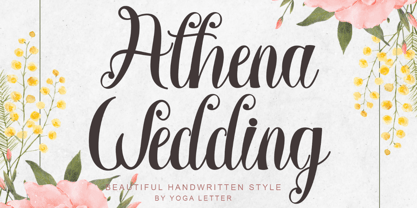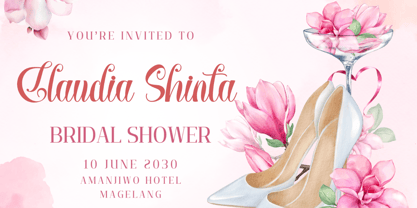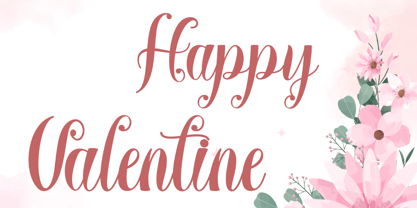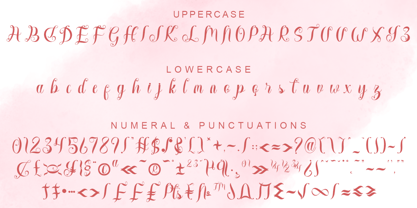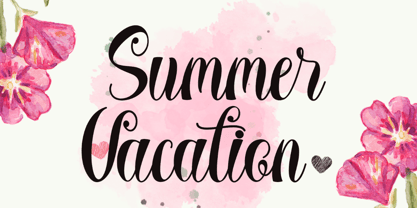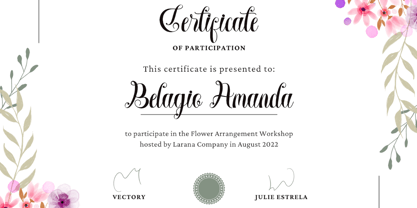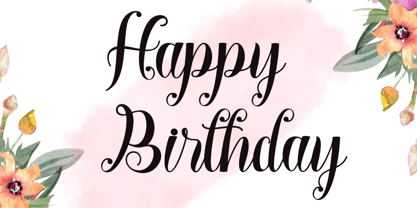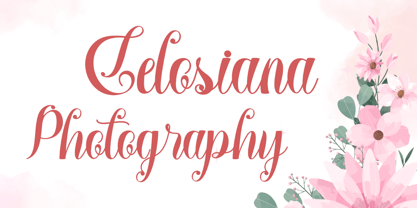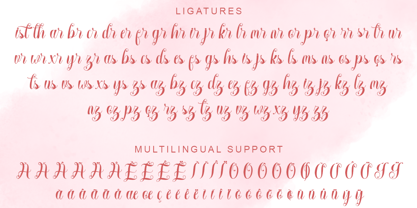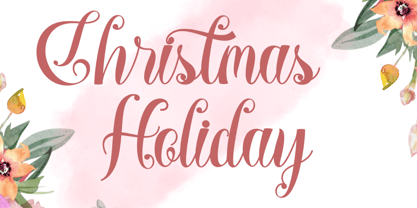
Athena Wedding
by Yoga Letter
The Athena Wedding Font Family was designed by Isroni Yoga Prasetya and published by Yoga Letter. Athena Wedding contains 1 styles.
"Athena Wedding" is an elegant, beautiful and professional handwritten font. This font is equipped with uppercase, lowercase, numerals, punctuations, ligatures and multilingual support. It is very suitable for weddings, invitations, summer, photography, certificates, birthdays, valentines, christmas, business branding, mother's day, father's day and others.
Designers: Isroni Yoga Prasetya
Publisher: Yoga Letter
Foundry: Yoga Letter
Design Owner: Yoga Letter